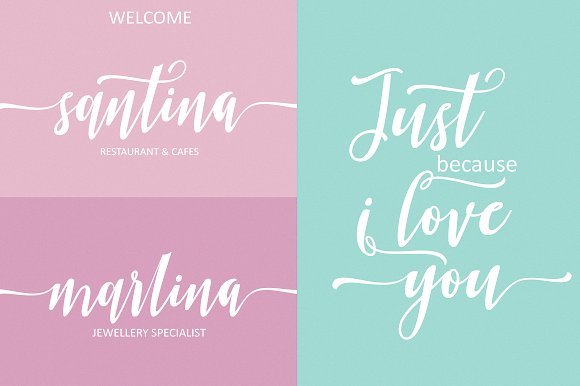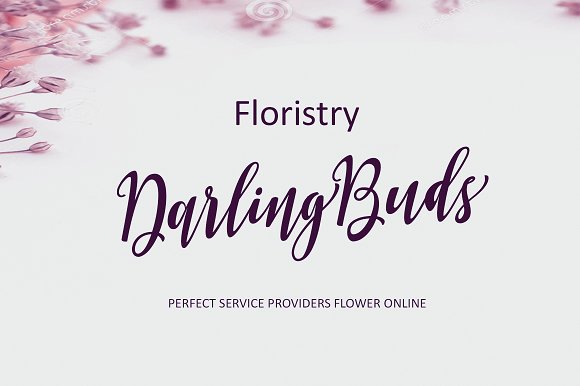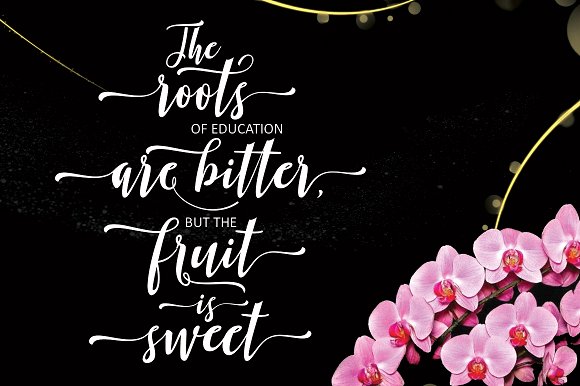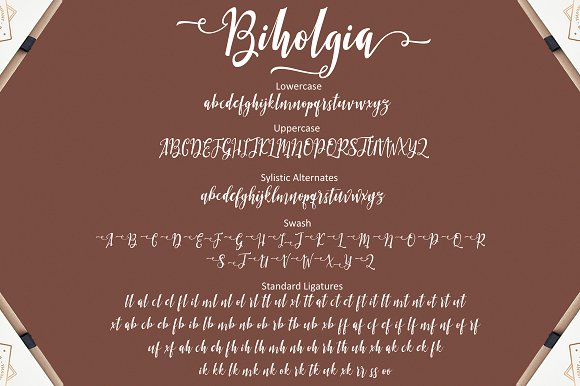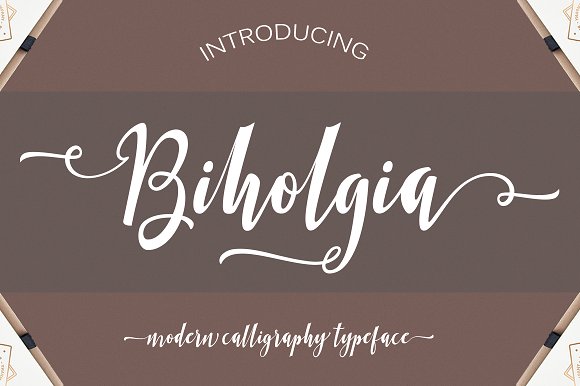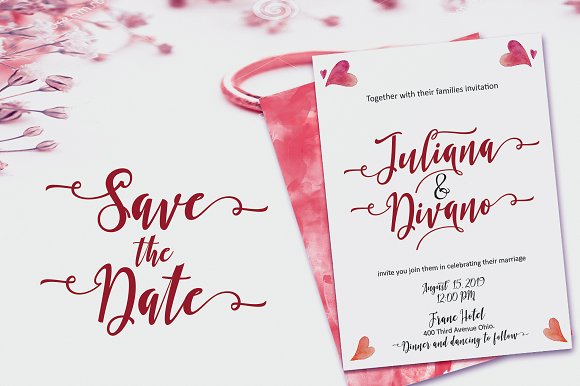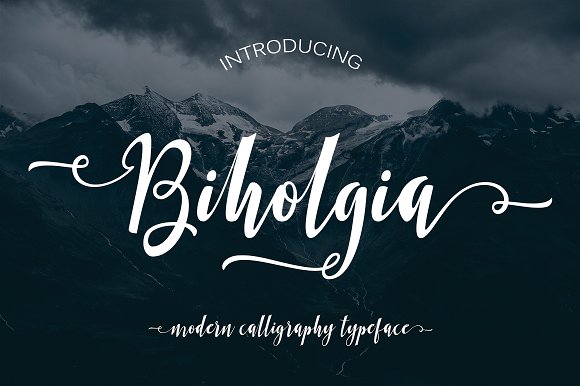
Biholgia Script Font
INTRODUCING
Biholgia Script – a new fresh & modern script with a handmade calligraphy style, decorative characters and a dancing baseline! So beautiful on invitation like greeting cards, branding materials, business cards, quotes, posters, and more!
Biholgia Script: features 560 glyphs, including 81 Standart ligatures and has given PUA unicode (specially coded fonts), can be accessed easily with the character map, can be accessed in full by the lovers of letters or artisans to increase career in the design world.